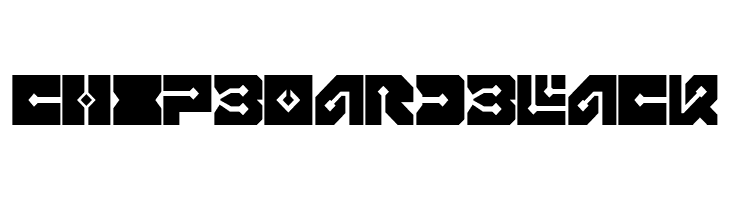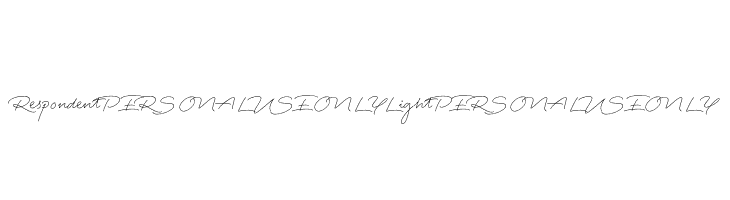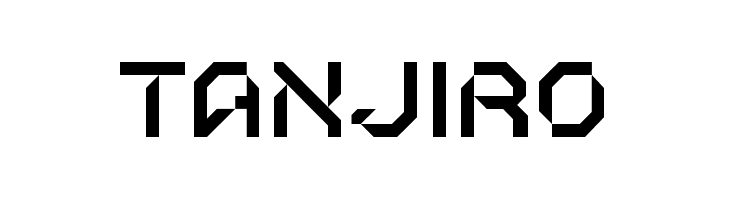
A bold, geometric font with angular strokes and decorative elements.
A playful and elegant script font with a handwritten feel.
A bold, angular font with a dynamic, aggressive style.
A monospaced font designed for clear and structured fraction representation.
A bold, futuristic font with geometric and industrial design elements.
A high-contrast serif font with elegant, modern features.
A modern, monospaced font with a digital dot pattern.
A graceful script font with fluid, connected strokes and a refined appearance.
A modern, rounded font with a playful yet clean aesthetic.
A bold, decorative font with a vintage, distressed look and ornate serifs.